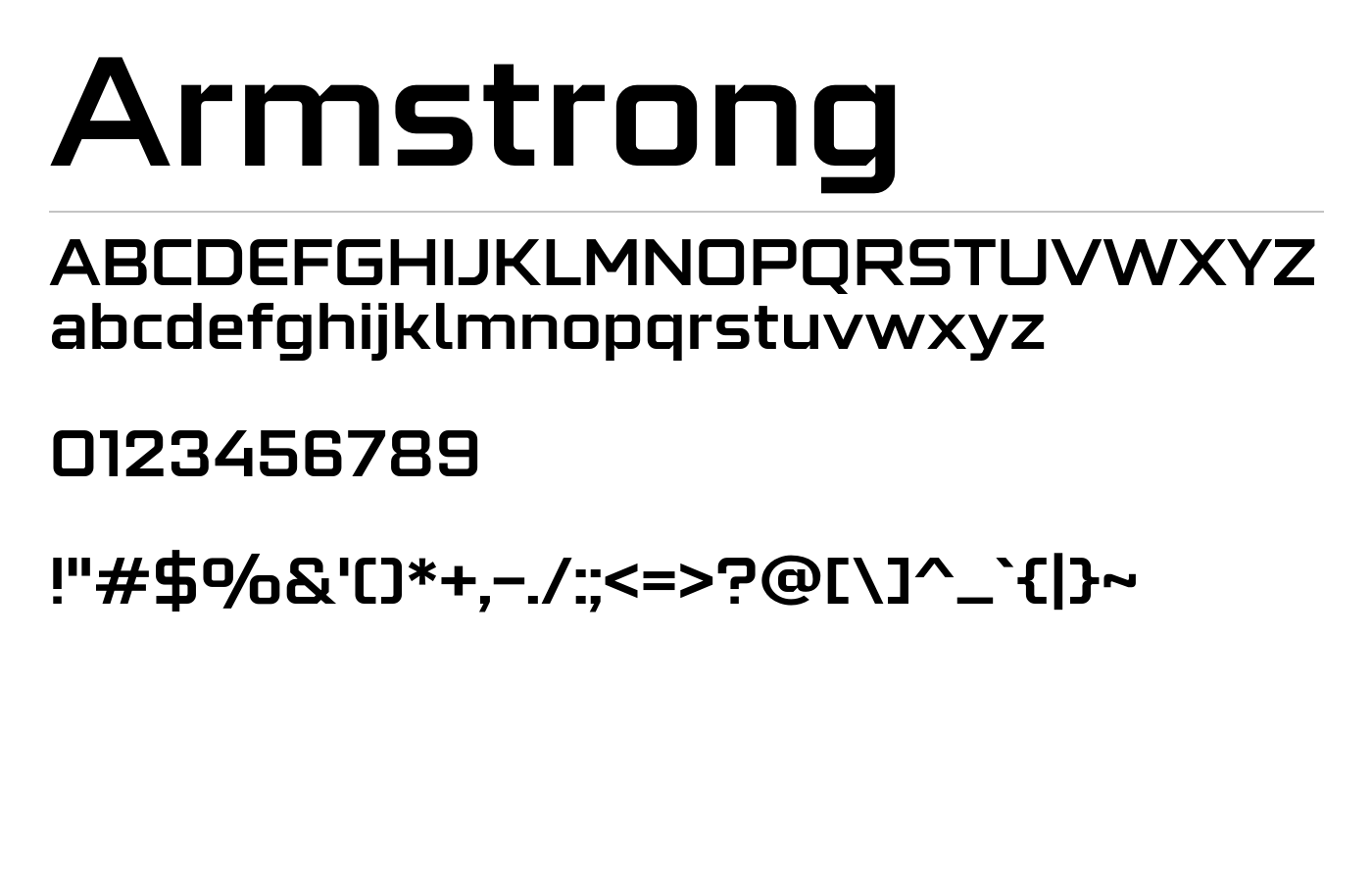
Armstrong is a modern, geometric sans-serif font characterized by its clean, angular letterforms and uniform stroke weight, giving it a strong, technical feel. Its tall x-height and slightly condensed width enhance readability and create a contemporary, professional appearance ideal for headlines, branding, and editorial design where a sleek, no-nonsense style is desired.
Armstrong Font